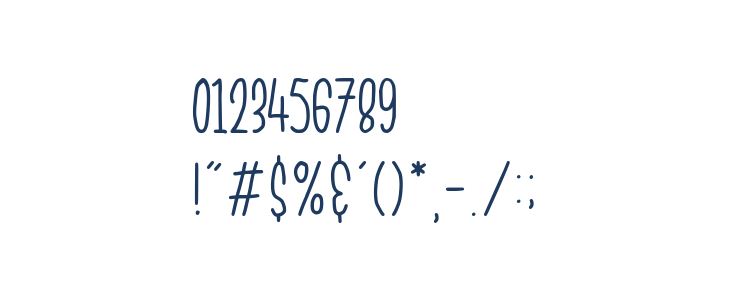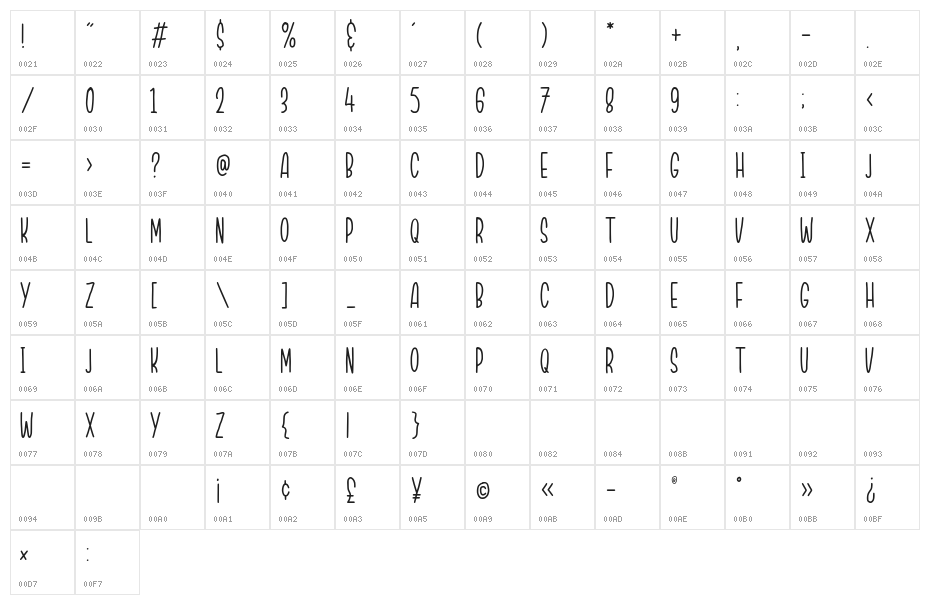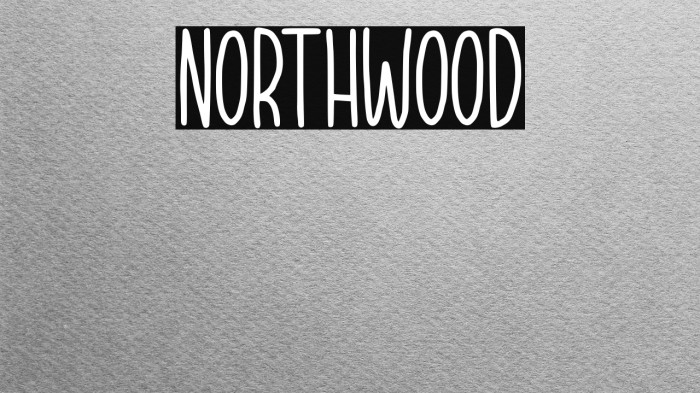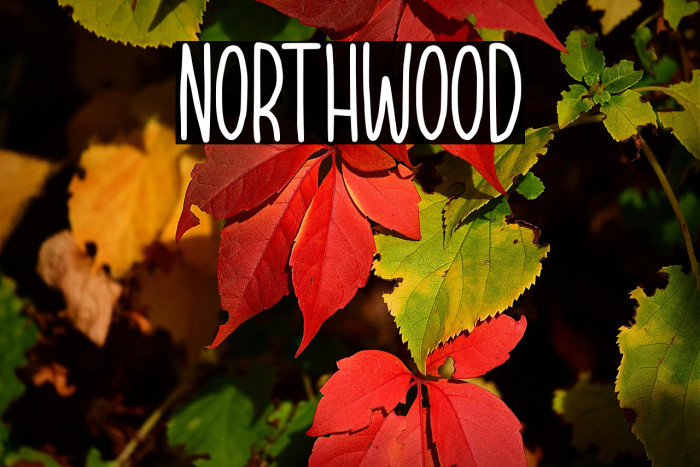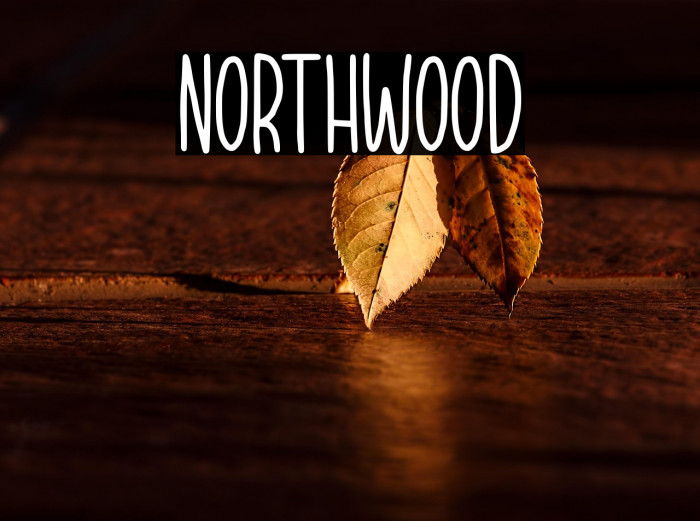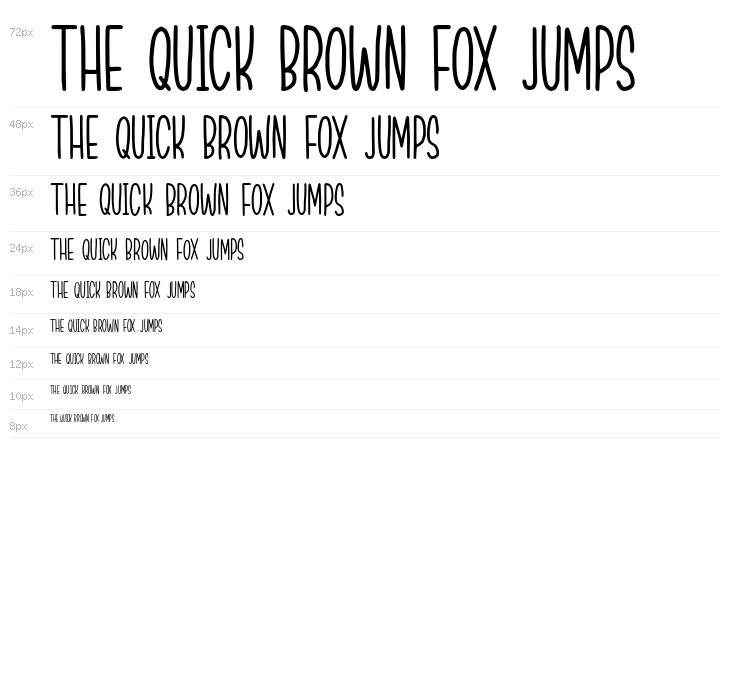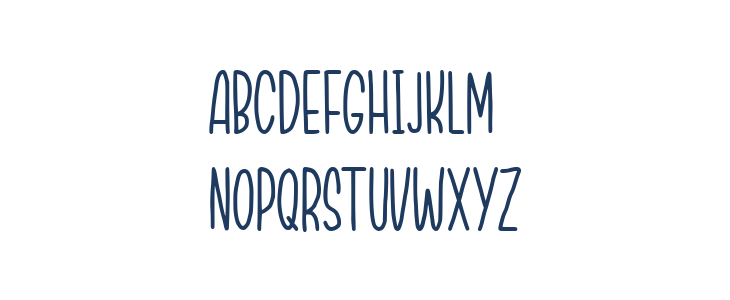
NORTHWOOD Font
NORTHWOOD Description
This font features a playful and casual handwritten style, characterized by its tall, narrow letters with rounded edges. The uppercase and lowercase letters maintain a consistent height, giving it a uniform appearance. The strokes are smooth and slightly irregular, adding to its informal charm. The numerals are similarly styled, with a quirky touch that complements the alphabet. Special characters are included, maintaining the same playful aesthetic. This font exudes a friendly and approachable vibe, making it suitable for a variety of creative projects.